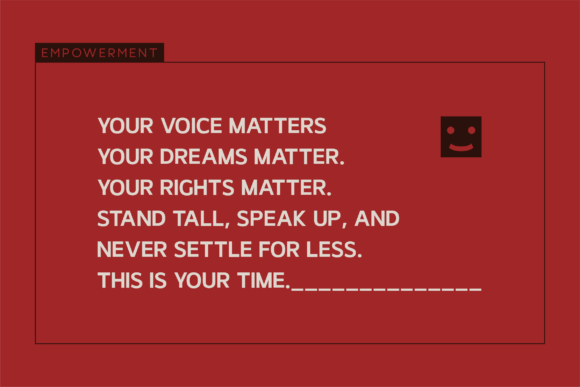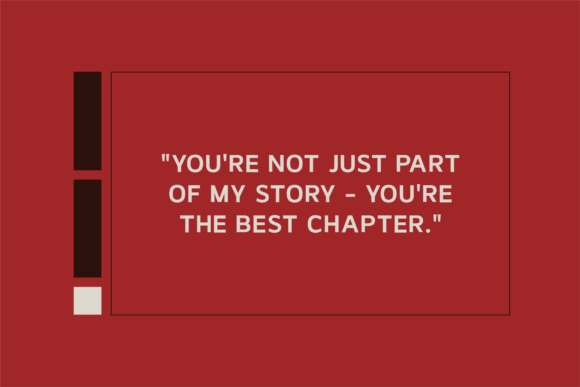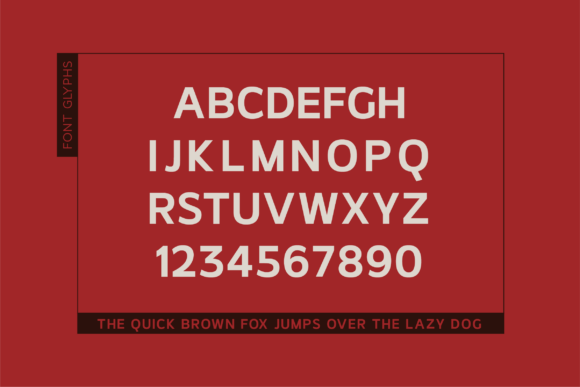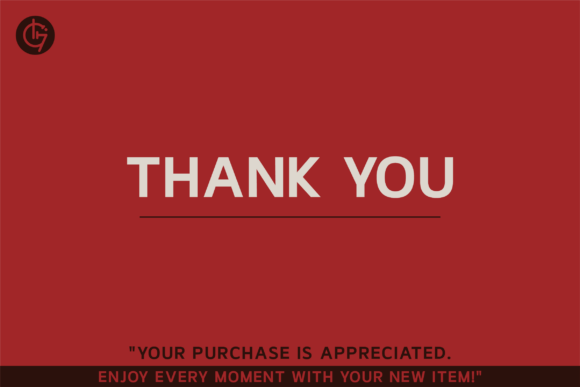
Introducing Handcreate – A Modern Sans Serif Typeface
In the world of design, typography plays a crucial role in conveying messages, expressing ideas, and creating lasting impressions. For designers and crafters seeking a font that embodies modernity, professionalism, and impact, Handcreate is an exceptional choice. This bold, all-caps sans serif typeface is specifically designed to make a statement, whether you’re working on a logo, website, or print material.
Clean Lines and Minimalist Aesthetic
Handcreate’s design is characterized by its clean lines and minimalist aesthetic, which exudes strength and authority. The font’s geometric structure ensures versatility, making it suitable for a wide range of applications, from digital interfaces to high-end branding. The all-caps design emphasizes clarity and readability, making it ideal for headlines, posters, and anywhere you need your message to stand out.
Key Features of Handcreate
• All-caps design for maximum impact and emphasis on clarity and readability
• Modern, minimalist style with a focus on readability and versatility
• Bold, clean lines for a confident and professional look
• Ideal for branding, logos, packaging, and digital design
• Perfect for both large-scale headlines and smaller text blocks
Perfect for Designers and Brands
Handcreate is perfect for brands, agencies, and designers seeking a font that can help them create a strong visual identity. The font’s bold and confident appearance makes it suitable for a wide range of projects, including:
• Logos and branding: Create a lasting impression with Handcreate’s bold and professional appearance
• Websites and digital interfaces: Ensure optimal readability and user experience with Handcreate’s clean lines and minimalist aesthetic
• Print materials: Make a statement with Handcreate’s sharp, crisp edges in brochures, posters, and business cards
• Packaging design: Add a touch of professionalism and modernity to your product packaging with Handcreate
Why Choose Handcreate?
With Handcreate, you can elevate your design projects and create a lasting impression on your audience. Here are some reasons why you should consider using Handcreate:
• Unique and modern design: Stand out from the crowd with Handcreate’s fresh and contemporary look
• High versatility: Use Handcreate across various platforms and applications, from digital to print
• Optimal readability: Ensure that your message is conveyed clearly and effectively with Handcreate’s clean lines and minimalist aesthetic
• Professional and bold appearance: Create a strong visual identity with Handcreate’s confident and professional look
Handcreate is an exceptional font that can help designers and crafters create stunning visual identities, convey messages effectively, and make a lasting impression on their audience. With its modern sans serif design, clean lines, and minimalist aesthetic, Handcreate is perfect for projects that require professionalism, impact, and versatility. Whether you’re working on a logo, website, or print material, Handcreate is an excellent choice for adding a touch of modernity and sophistication to your design.